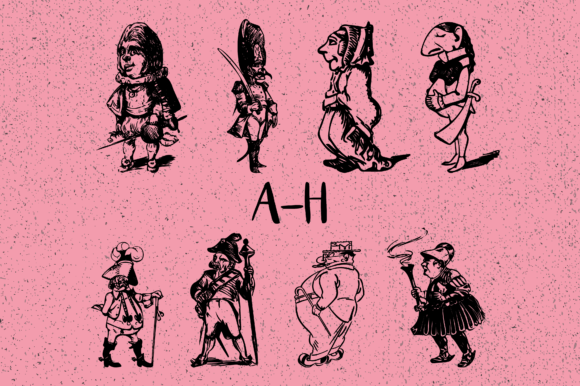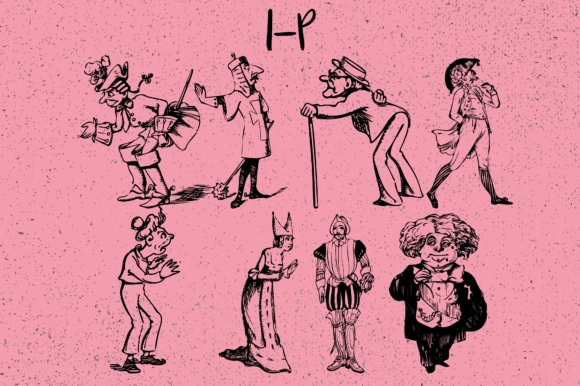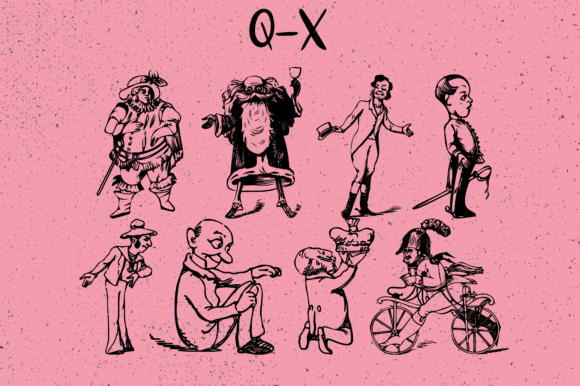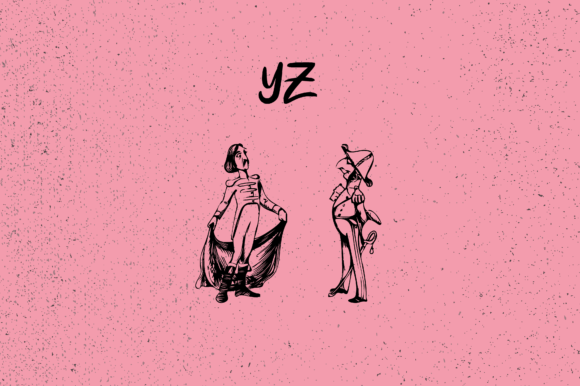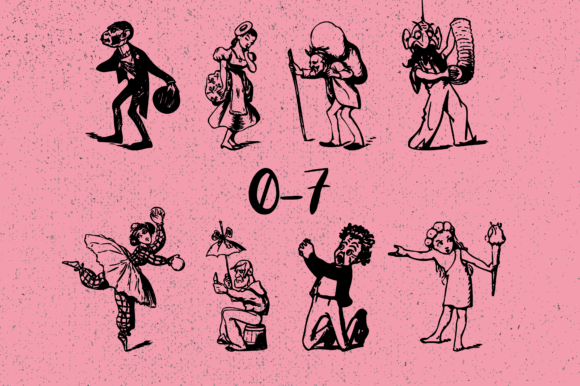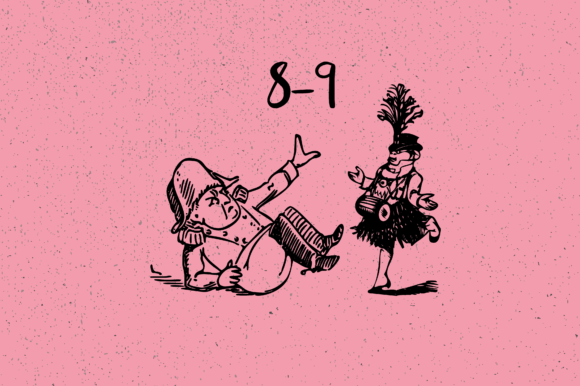
Unleash Your Creativity with Comic Characters Font
Are you a designer, crafter, or simply a comic book enthusiast looking for a unique way to add some personality to your projects? Look no further than the Comic Characters Font, a dingbats typeface that allows you to generate up to 62 unique comic cartoon characters with just a few simple keystrokes.
What is Comic Characters Font?
Comic Characters Font is a specially designed dingbats typeface that maps capital and small letters, as well as numbers, to a wide range of comic-style characters. With this font, you can create a diverse cast of characters, from superheroes to villains, animals to monsters, and everything in between.
How Does it Work?
Using Comic Characters Font is incredibly easy. Simply type a capital or small letter, or a number, and the corresponding comic character will appear. With 62 unique characters to choose from, you can mix and match to create a wide range of different looks and styles.
What Can I Use Comic Characters Font For?
The possibilities are endless with Comic Characters Font. Here are just a few ideas to get you started:
- Comic books and graphic novels: Create your own comic book characters and storylines with ease.
- Illustrations and cartoons: Add a touch of personality to your illustrations and cartoons with unique and engaging characters.
- Crafting and scrapbooking: Use Comic Characters Font to add a fun and playful touch to your craft projects, such as scrapbooking, card making, and more.
- Web design and digital art: Add a pop of personality to your website or digital art with these fun and quirky characters.
Here are just a few of the features and benefits that make Comic Characters Font a must-have for designers and crafters:
- Easy to use: Simply type a letter or number to generate a comic character.
- 62 unique characters: Mix and match to create a wide range of different looks and styles.
- Dingbats typeface: Perfect for adding a touch of personality to your projects.
Here are a few tips and tricks to help you get the most out of Comic Characters Font:
- Experiment with different combinations: Try mixing and matching different characters to create unique and interesting combinations.
- Use with other fonts: Pair Comic Characters Font with other fonts to create a unique and eye-catching look.
- Customize and edit: Use your favorite design software to customize and edit the characters to suit your needs.
Comic Characters Font is a fun and versatile dingbats typeface that is perfect for designers, crafters, and comic book enthusiasts. With its ease of use, wide range of characters, and compatibility with most design software, it’s a must-have for anyone looking to add a touch of personality to their projects. So why wait? Download Comic Characters Font today and start unleashing your creativity!